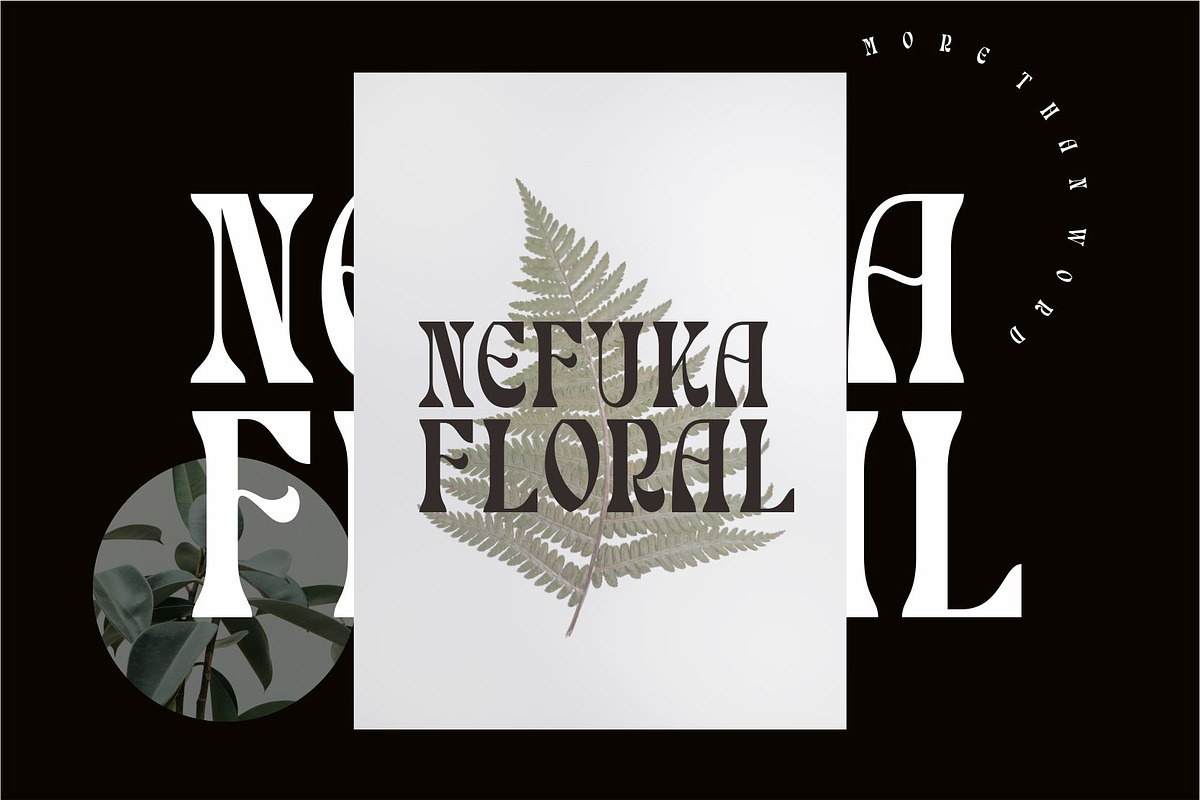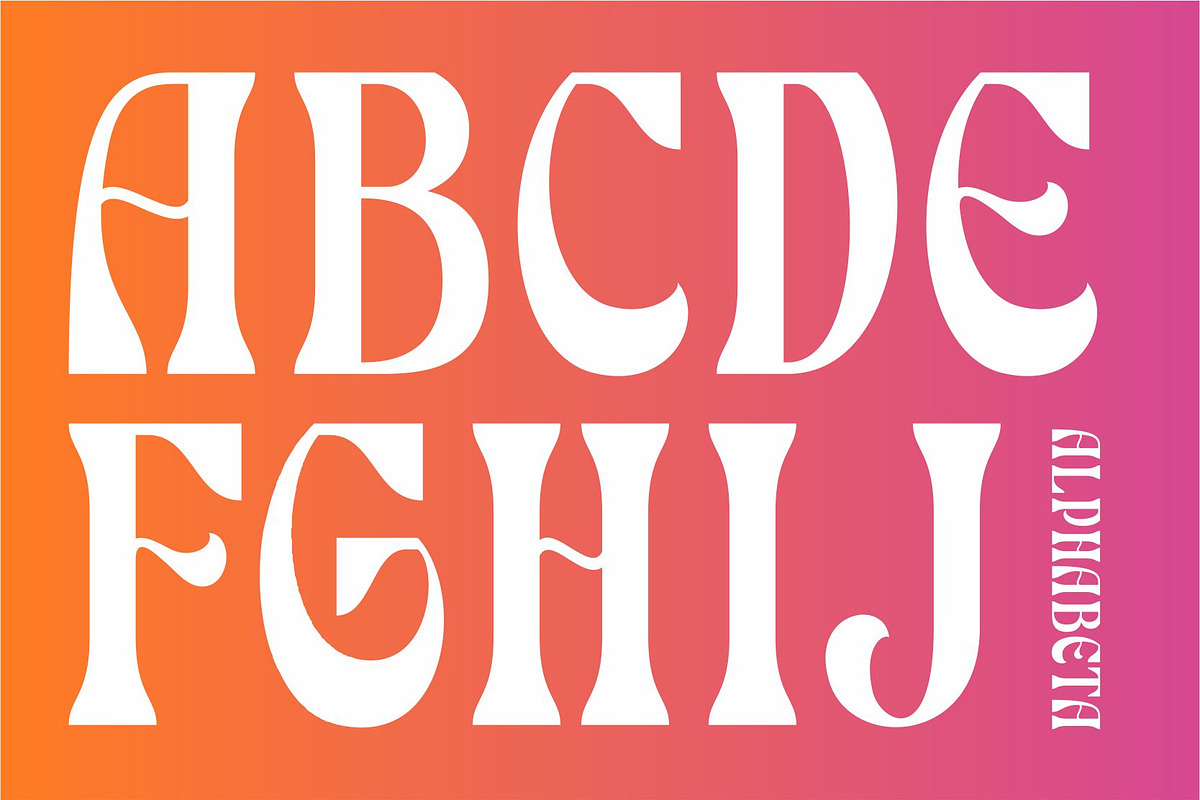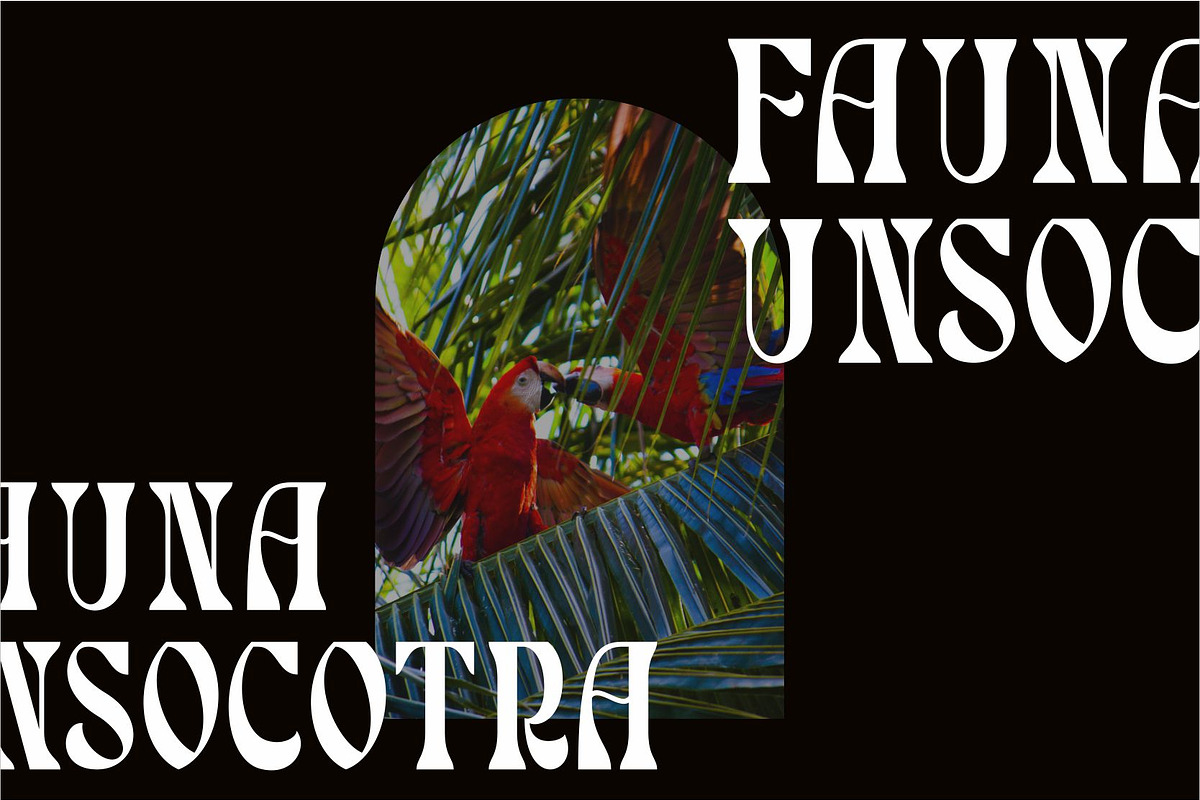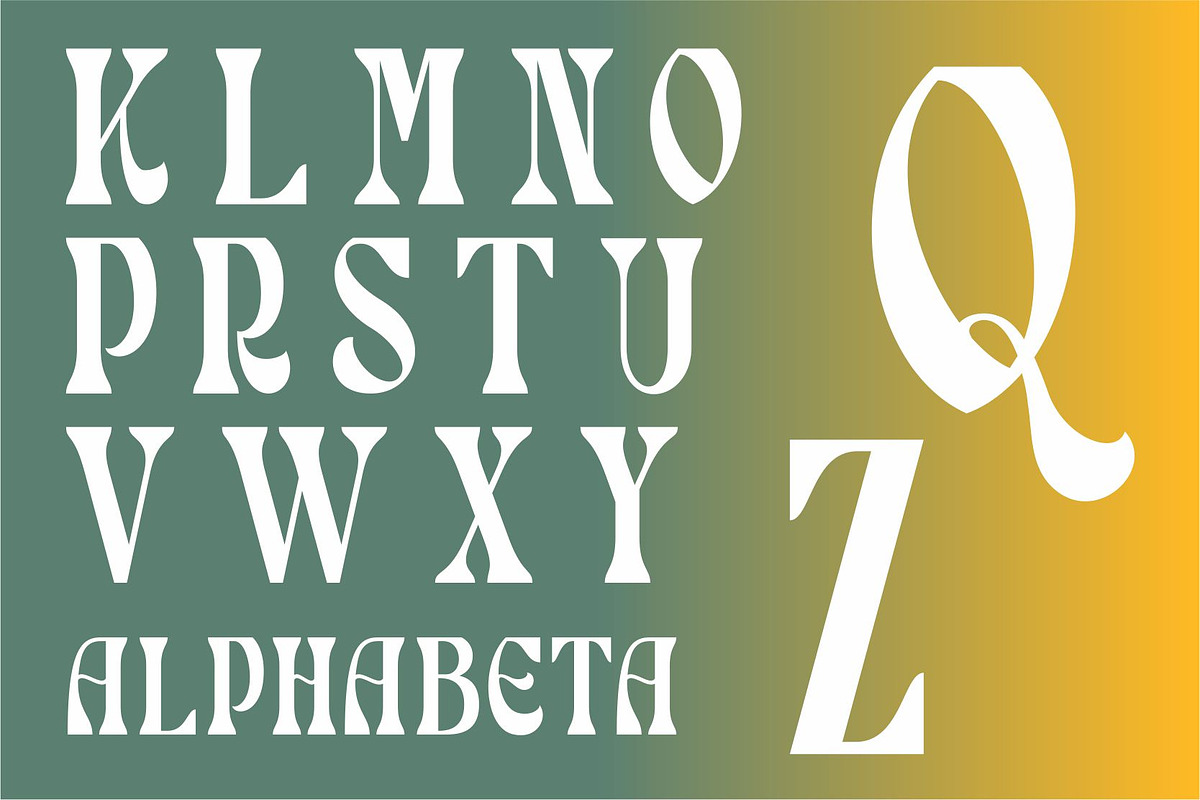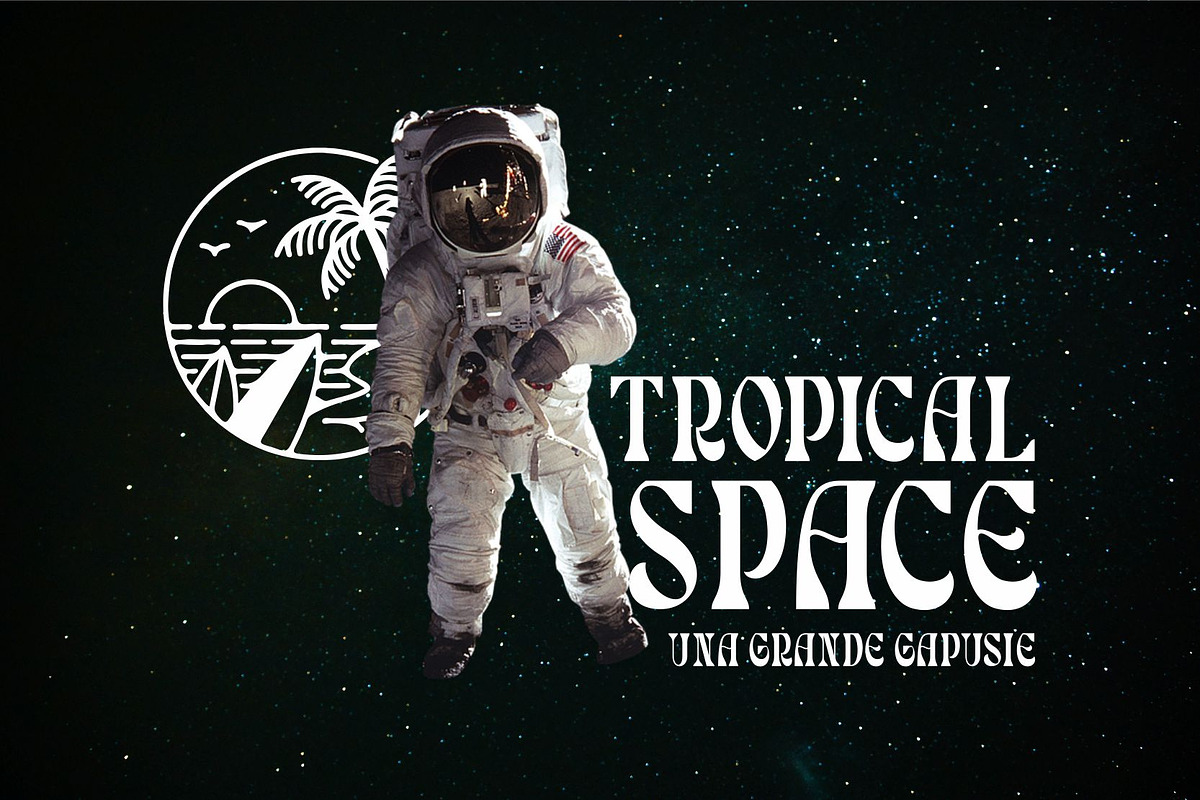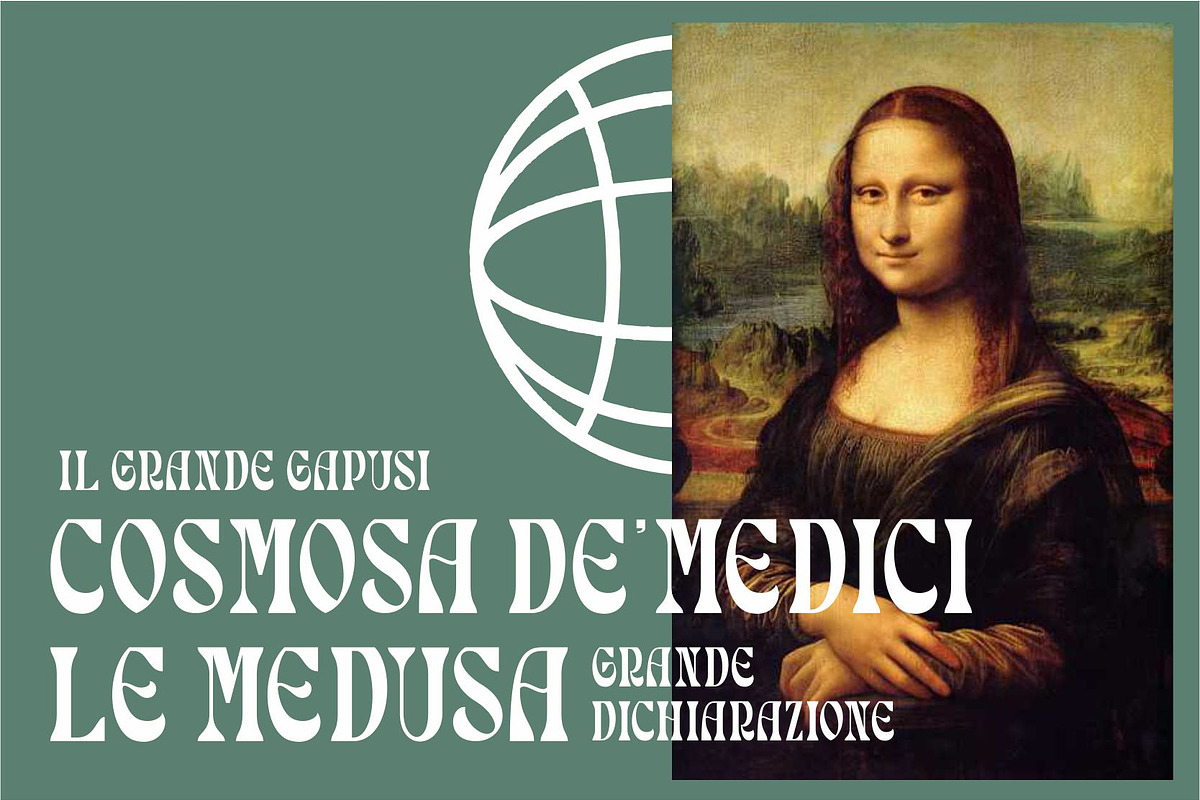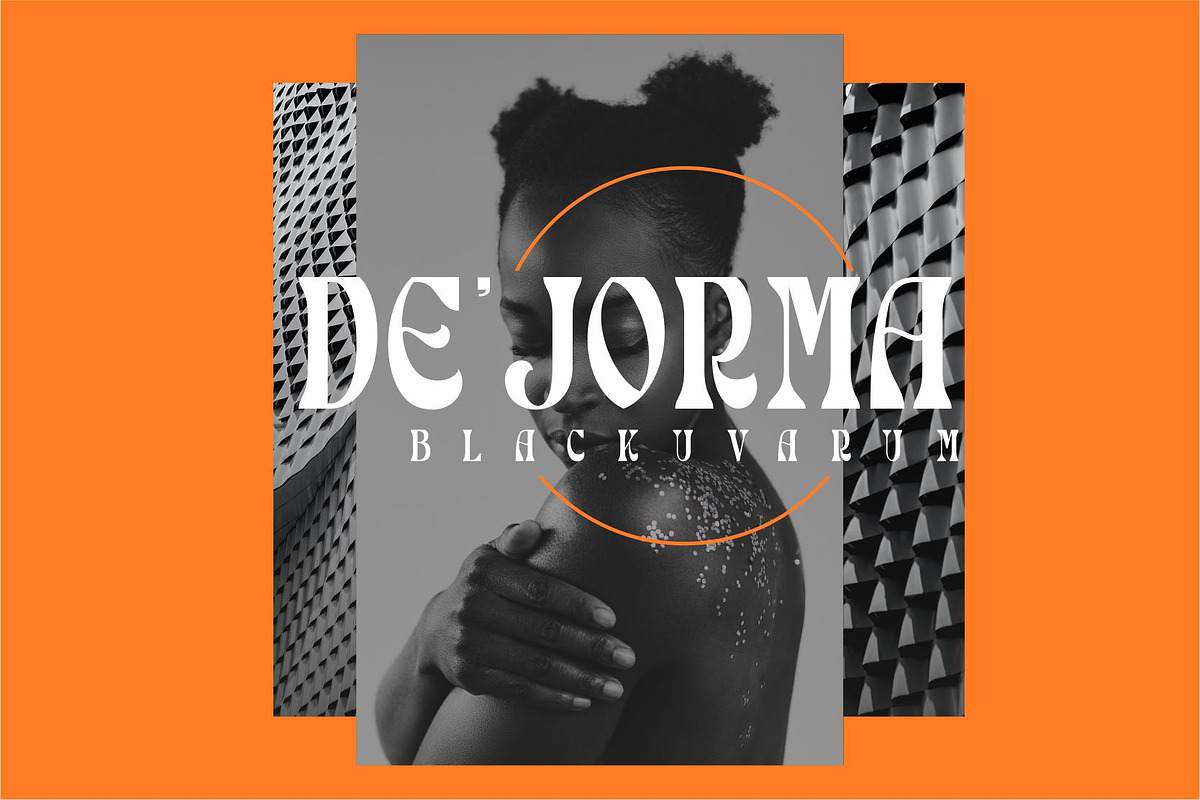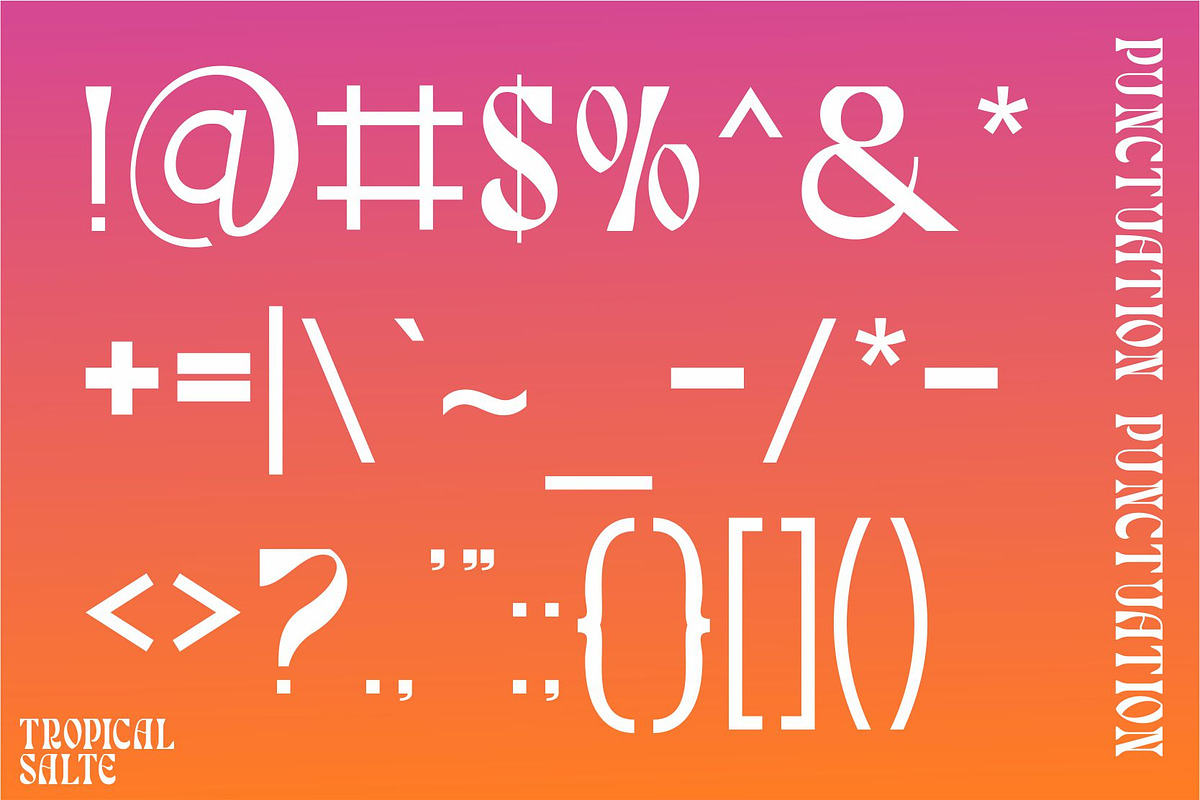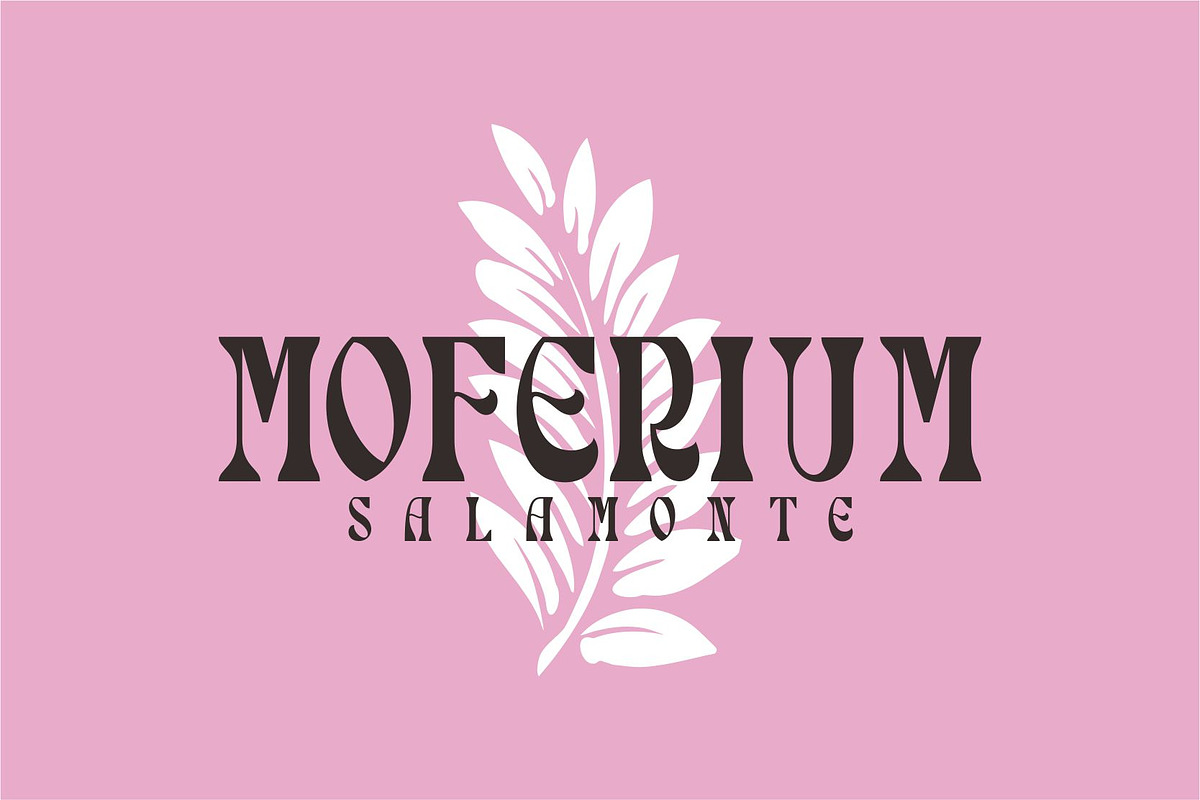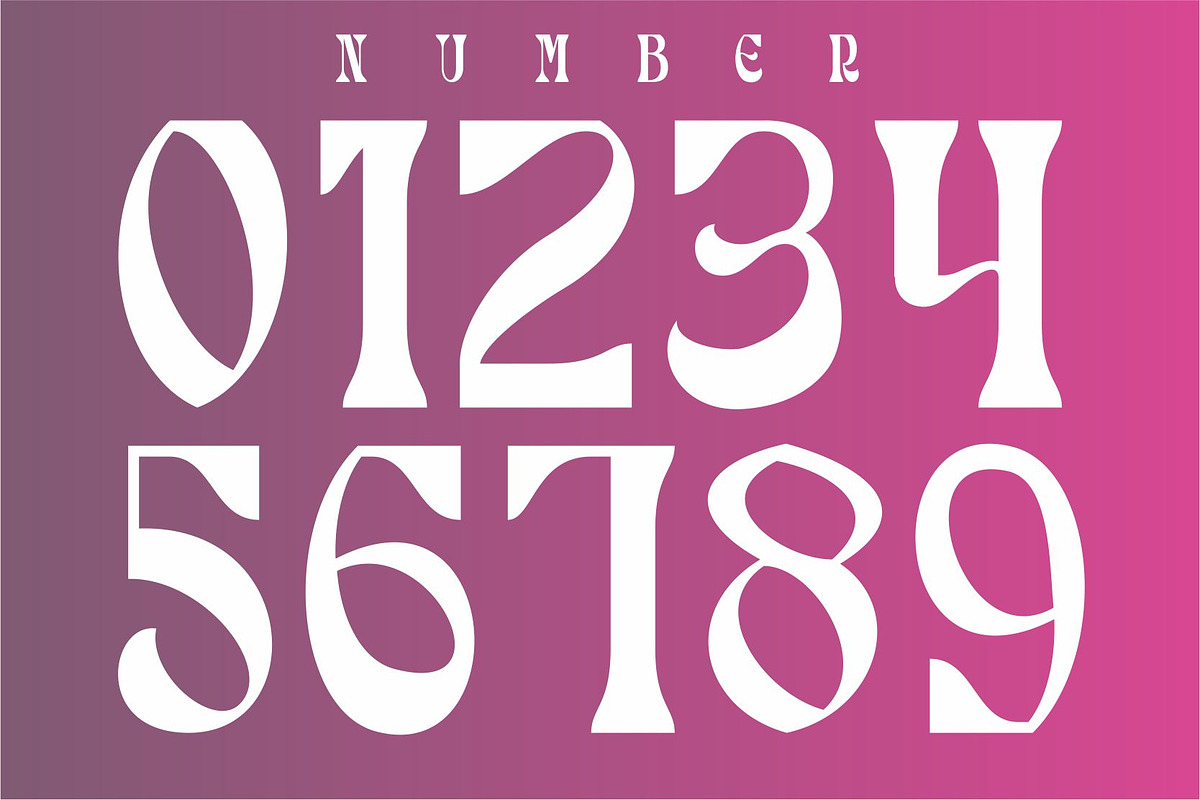
Tropico Salte | Serif Display
Tropico Salte fonts includes uppercase letters, numerals, a large range of punctuation. Serif font with modern display style. Created for poster, web design, branding, illustrations, badges and some other works.